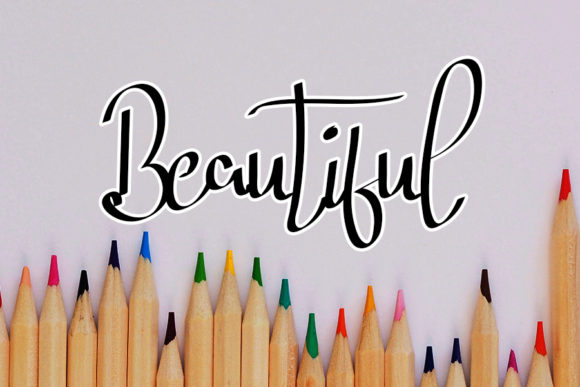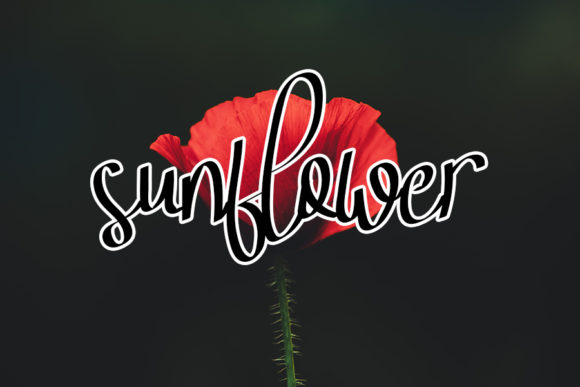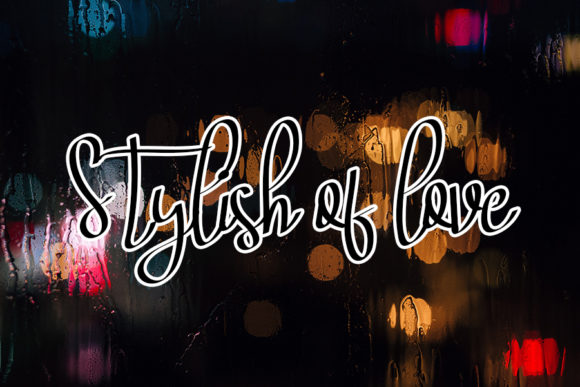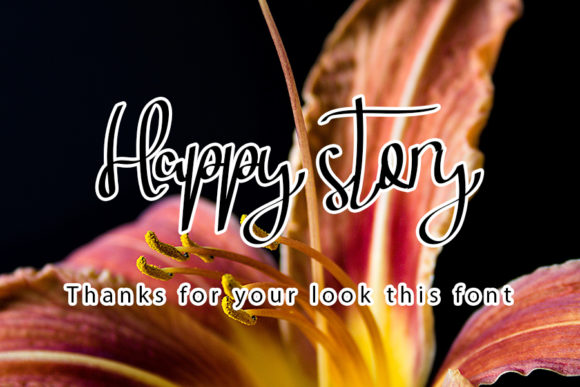
Discover the Magic of Bellsanga Font
As designers, we’ve all been there – staring at a blank page, searching for the perfect font to bring our creative vision to life. The moment of inspiration hits, and you know exactly what you need to make your design pop. For me, it was the gentle curves and whimsical charm of the Bellsanga Font that sparked a flood of ideas and possibilities.
This sweet and cursive handwritten font is more than just a pretty face – it’s a game-changer for designers looking to add a touch of romance and joy to their projects. With its versatility and elegance, Bellsanga Font is the perfect companion for any creative endeavor, from wedding invitations to blog posts and beyond.
Whether you’re a seasoned pro or just starting out, the Bellsanga Font is an invaluable addition to your design toolkit, offering endless possibilities for expression and creativity. Get ready to unlock the full potential of this charming font and take your designs to the next level!
Bellsanga Font Key Features
- Font Family: Bellsanga
- Character Count: 1280 glyphs, including Latin, Cyrillic, and Greek alphabets, as well as various symbols and icons
- Unique Characteristics: Distinctive, hand-drawn aesthetic with a mix of modern and vintage elements, making it suitable for a wide range of design applications
Bellsanga Font Review
I recently had the chance to work with the Bellsanga font, and I must say it’s a mixed bag. On one hand, I think it’s a beautiful and elegant font, perfect for those who want to add a touch of sophistication to their designs. ✨ The letterforms are sleek and modern, with a unique flair that sets it apart from more common fonts. ✨ The font also supports a wide range of languages, which is a major plus for designers who work with international clients. ✨
However, there are some limitations to consider. ⚠️ One of the biggest drawbacks is that the font can be difficult to read at small sizes, which may not be ideal for designs that require a lot of text. ⚠️ Additionally, the font’s unique style can sometimes make it feel overly ornate or distracting, which may not be suitable for all projects. ⚠️
Overall, I think the Bellsanga font is a great choice for designers who want to add a touch of elegance to their work, but it’s not without its limitations. With careful use and consideration of the font’s strengths and weaknesses, it can be a valuable addition to any designer’s toolkit.
- Beautiful and elegant design
- Sleek and modern letterforms
- Supports a wide range of languages
- Can be difficult to read at small sizes
- May feel overly ornate or distracting in some designs
Getting the Most Out of Bellsanga Font
To get the most out of the Bellsanga font, try the following:
- Use it in bold or italic styles to add emphasis.
- Combine it with other fonts for a unique look.
- Experiment with different font sizes and colors.
The Bellsanga font is well-suited for:
- Displaying headings and titles.
- Creating eye-catching graphics and posters.
- Designing
Alternatives to Bellsanga Font for Designers
Great Vibes Font is a beautiful, elegant script font suitable for titles, headings, and invitations. It’s perfect for adding a touch of sophistication to your designs. Great Vibes Font has a similar flair to Bellsanga Font but with more refined lines and a softer feel.
Alex Brush Font is a handwritten script font ideal for creating a personal and emotive touch in your designs. It’s great for titles, quotes, and other text elements where you want to convey a sense of warmth and personality. Compared to Bellsanga Font, Alex Brush Font has a more rustic feel and is better suited for casual designs.
Dancing Script Font is a lively, elegant script font perfect for titles, headings, and other text elements where you want to add a sense of movement and energy. It’s similar to Bellsanga Font in terms of its flair and sophistication but has a more playful and dynamic feel.